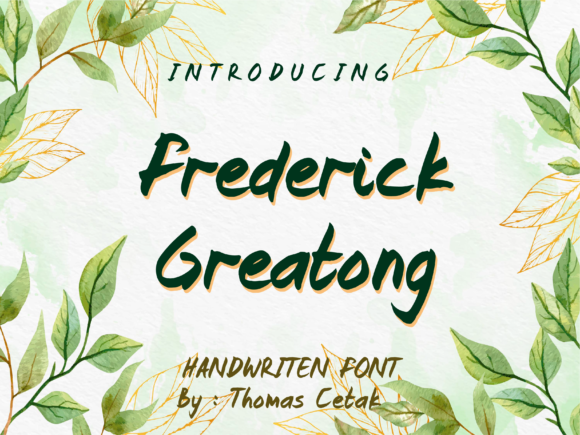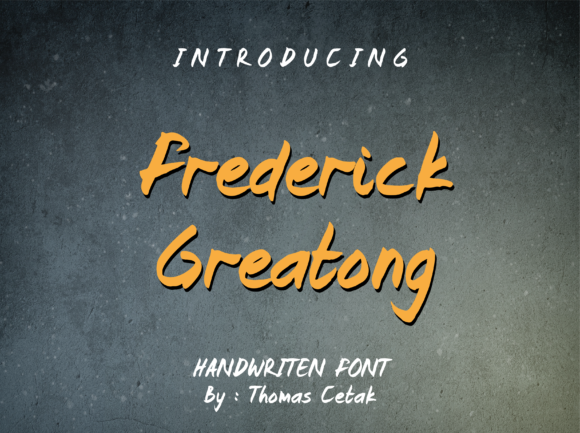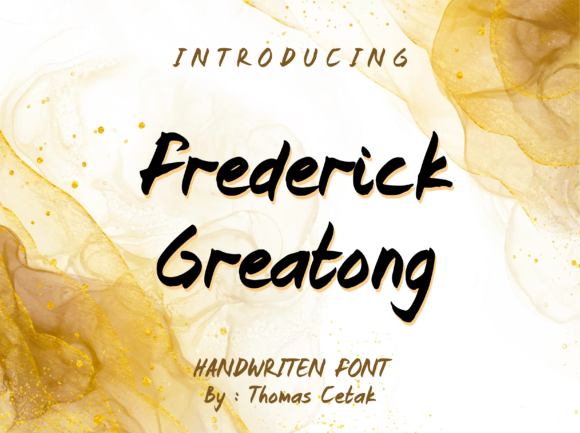
Frederick Greatong Font
About Frederick Greatong Font
Frederick Greatong is a simple yet emphatic handwritten font that brings a touch of creativity and uniqueness to your designs. Its versatility makes it a great choice for various design projects, especially those with themes related to photography, comic books, children’s stories, and more.
Emphatic and Expressive: Frederick Greatong’s hand-drawn style gives it an emphatic and expressive appearance. The organic flow of the letters adds a sense of authenticity and personality to the text, making it stand out and capture attention.
Photography Themes: This font is highly recommended for use in covers related to photography themes. Its artistic and handcrafted look complements images and photographs, enhancing the overall visual appeal of the design.
Comic Books: Frederick Greatong’s playful and whimsical nature makes it a suitable choice for comic book titles and captions. It can add a touch of fun and excitement to the comic’s narrative and characters.
Children’s Story Titles: For children’s book covers and titles, this font brings a sense of imagination and wonder. Its hand-drawn style resonates with young readers and evokes a sense of adventure.
Brand Traction: If you’re looking to create a memorable brand identity, Frederick Greatong can add traction to your cover brand. Its unique and personalized appearance helps your brand stand out and leaves a lasting impression on the audience.
Versatile Usage: Besides the mentioned applications, Frederick Greatong is versatile and can be used in a wide range of projects, such as greeting cards, posters, social media graphics, and more.
Handcrafted Aesthetic: The font’s handcrafted aesthetic adds a human touch to your designs, conveying a sense of authenticity and creativity. It can be especially valuable for projects seeking a personal and artistic feel.
Cover Designs: Whether it’s for book covers, album covers, or magazine covers, Frederick Greatong can elevate the overall look and feel of the design, making it visually appealing and engaging.
In summary, Frederick Greatong is a simple yet emphatic handwritten font that works wonders for various design themes, particularly those related to photography, comic books, and children’s stories. Its versatility and hand-drawn charm make it an excellent choice for creating captivating and personalized cover designs.